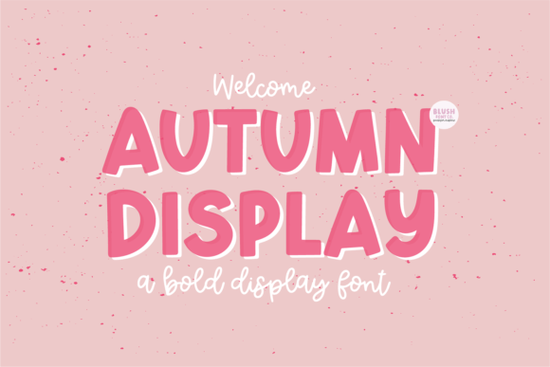
If you’re looking for a font that feels both nostalgic and bold without being overwhelming, Autumn Display Font might be exactly what your next project needs. It’s got that simple retro charm think 70s posters meets modern minimalism which makes it surprisingly versatile. Whether you’re designing birthday invites, custom t-shirts, or social media graphics, this font holds up well in print and on screen. And yes, it includes punctuation and international characters, so you’re not stuck rewriting text just to make it work.
What kinds of projects does this font actually work for?
Honestly? Almost anything casual or crafty. Here’s where it shines:
- Print-on-demand products Think mugs, tote bags, or sweatshirts with short, punchy phrases.
- Birthday or party invitations Especially if you’re going for that handmade, slightly vintage vibe.
- Social media quotes or announcements Bold enough to grab attention, clean enough to stay readable.
- Small business branding Coffee shops, boutiques, or local event flyers that want personality without clutter.
It’s not the kind of font you’d use for body text in a novel, but that’s not the point. It’s meant to stand out briefly, clearly, and with character. If you like how Belly Font feels playful or how Belmore Font leans into retro signage, you’ll probably feel right at home with Autumn Display.
How does it compare to other display fonts on Creative Fabrica?
There’s no shortage of bold display fonts out there, but Autumn Display sits in a sweet spot: not too ornate, not too stiff. For example:
- If you need something more athletic or school-spirited, check out Varsity Football Team Font.
- Prefer something with sharper edges and urban energy? Yorks Font might be your pick.
- Want something even softer and rounded? Belly Font is friendlier for kid-focused designs.
Autumn Display doesn’t try to do everything. It’s focused and that’s why it works. You can pair it easily with a clean sans-serif for contrast, or let it stand alone when you want one strong visual statement.
Does it support special characters or languages?
Yes. Beyond the standard A-Z and numbers, it includes basic punctuation and a solid set of international characters. That means you can confidently use it for projects in French, Spanish, German, or other Latin-based alphabets without weird substitutions or missing glyphs. Not every display font offers that some look great until you need an “é” or an “ü,” and then you’re stuck. This one’s built with real-world use in mind.
Any tips for getting the most out of this font?
Here’s what helps it pop:
- Use generous spacing. Let the letters breathe especially in all-caps settings.
- Pair with neutral backgrounds. Busy patterns can fight with its bold lines.
- Try it in unexpected sizes. Sometimes shrinking it down for a small tag or label gives it a quirky charm.
- Add subtle textures. A light paper grain or faded ink effect enhances the retro mood without overpowering it.
Start simple. Pick one project maybe a birthday card or an Instagram story and try it out. You don’t need to overhaul your entire brand to see if it fits. Sometimes the best tools are the ones that quietly do their job without demanding attention.